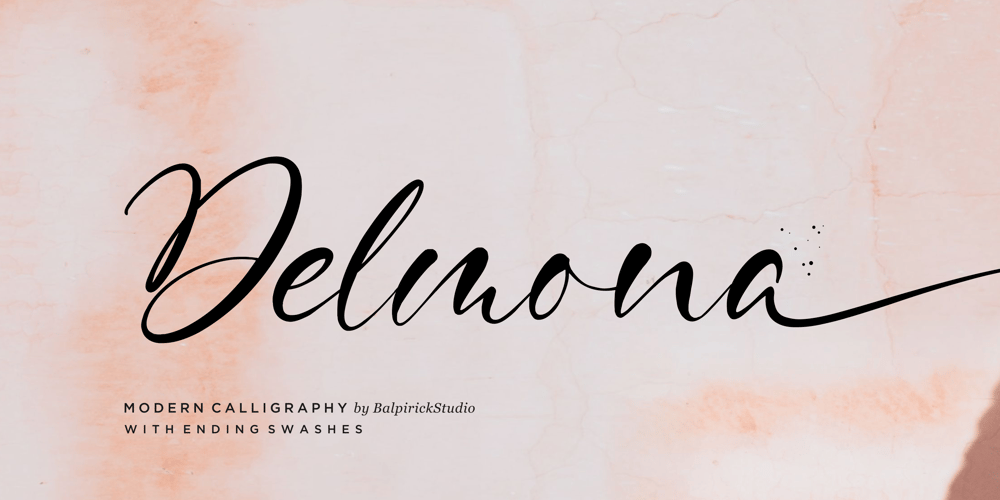
Delmona
Delmona font
Delmona Font Family was designed by Restu Angga and published by Balpirick. Delmona contains 1 styles and family package options. Delmona is a Modern Calligraphy Font.Delmona is perfect for product packaging, branding project, megazine, social media, wedding, or just used to express words above the background.Delmona also multilingual support.Lowercase font Stylistic Alternates Ligatures Symbols & Punctuation OpenType Features.Enjoy the font, feel free to comment or feedback, send me PM or email.Thank you!